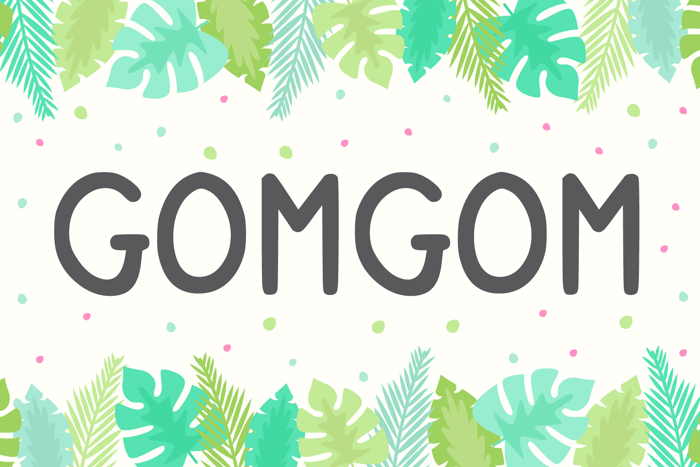
Gomgom Handwrite Font
Gomgom Handwritten Font Handwritten style fonts, suitable for use with children's themed designs. Perfect for children's story book letter, branding projects, logo, wedding designs, social media posts, advertisements, product packaging, product designs, label, photography, watermark, invitation, stationery and any projects that need handwriting taste.